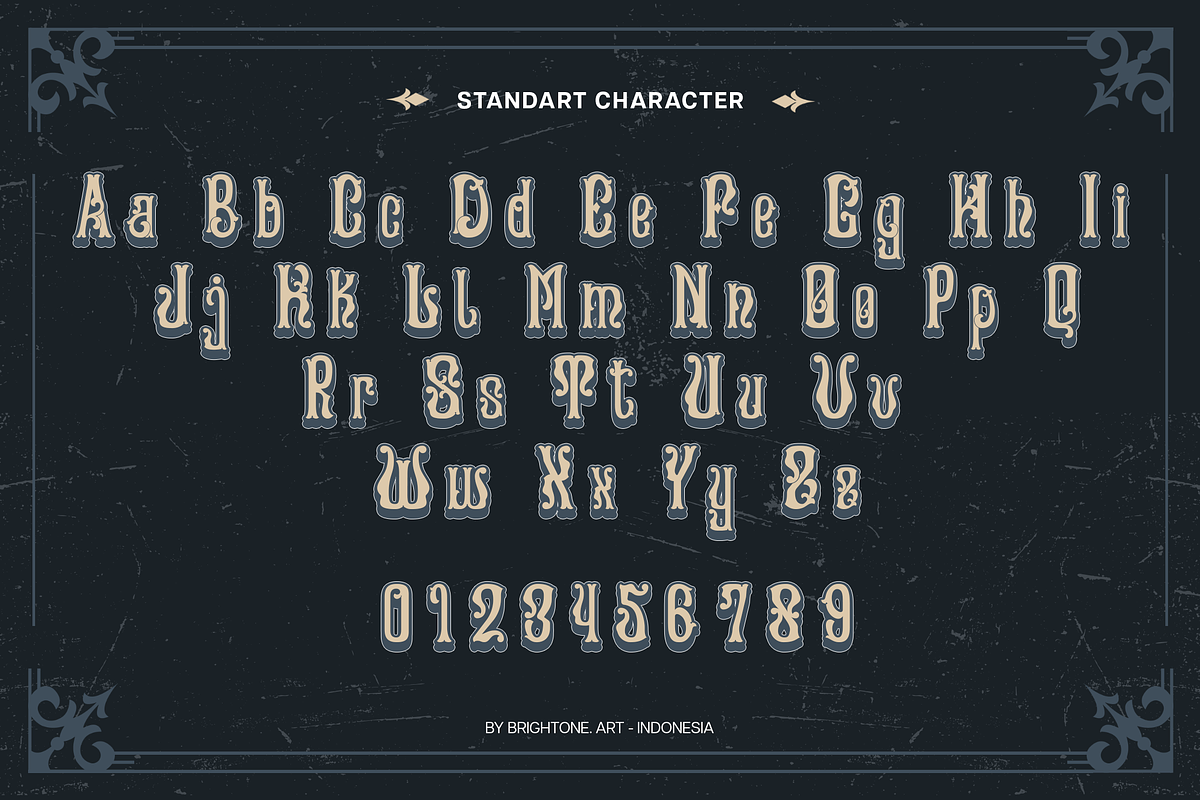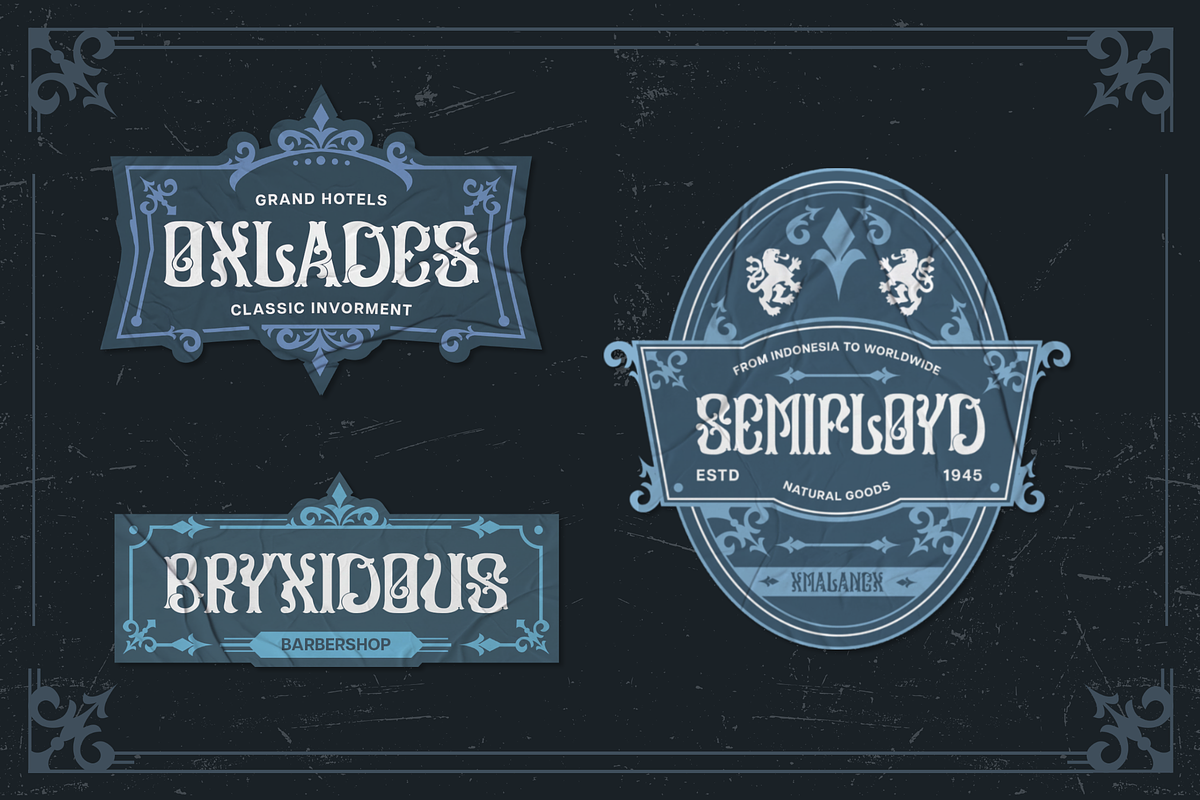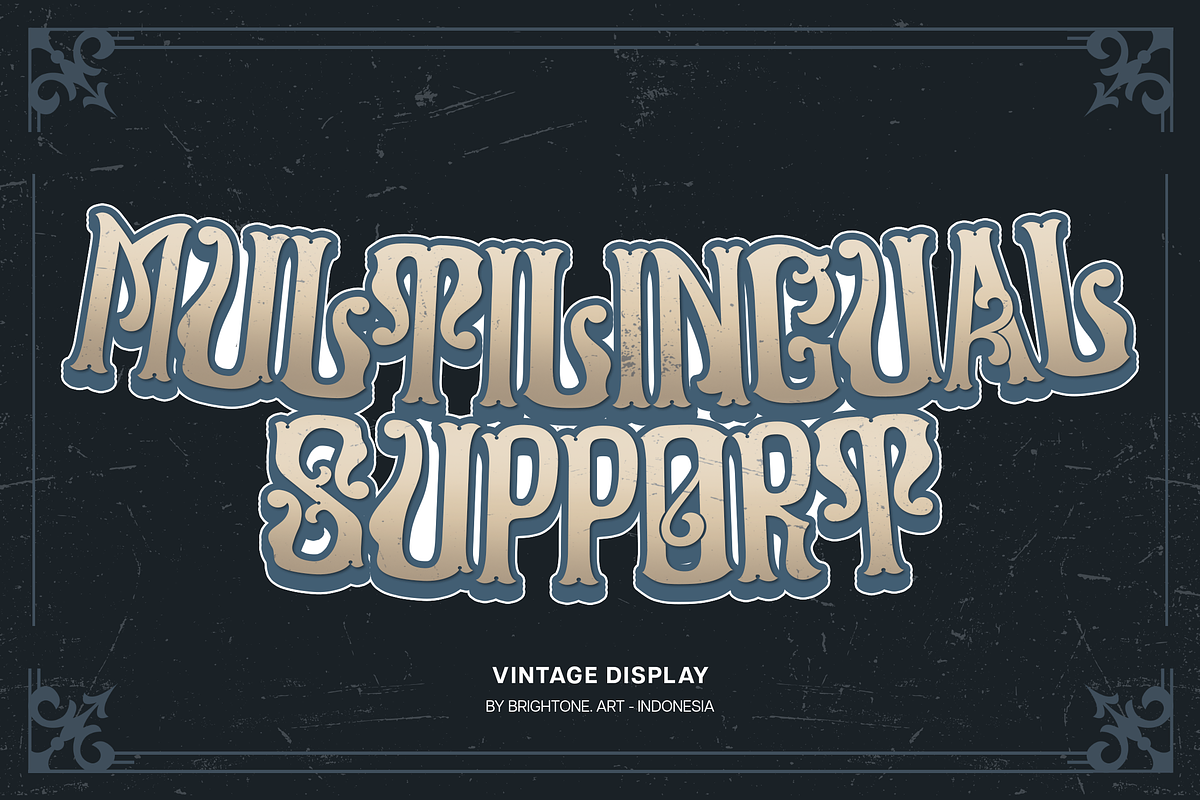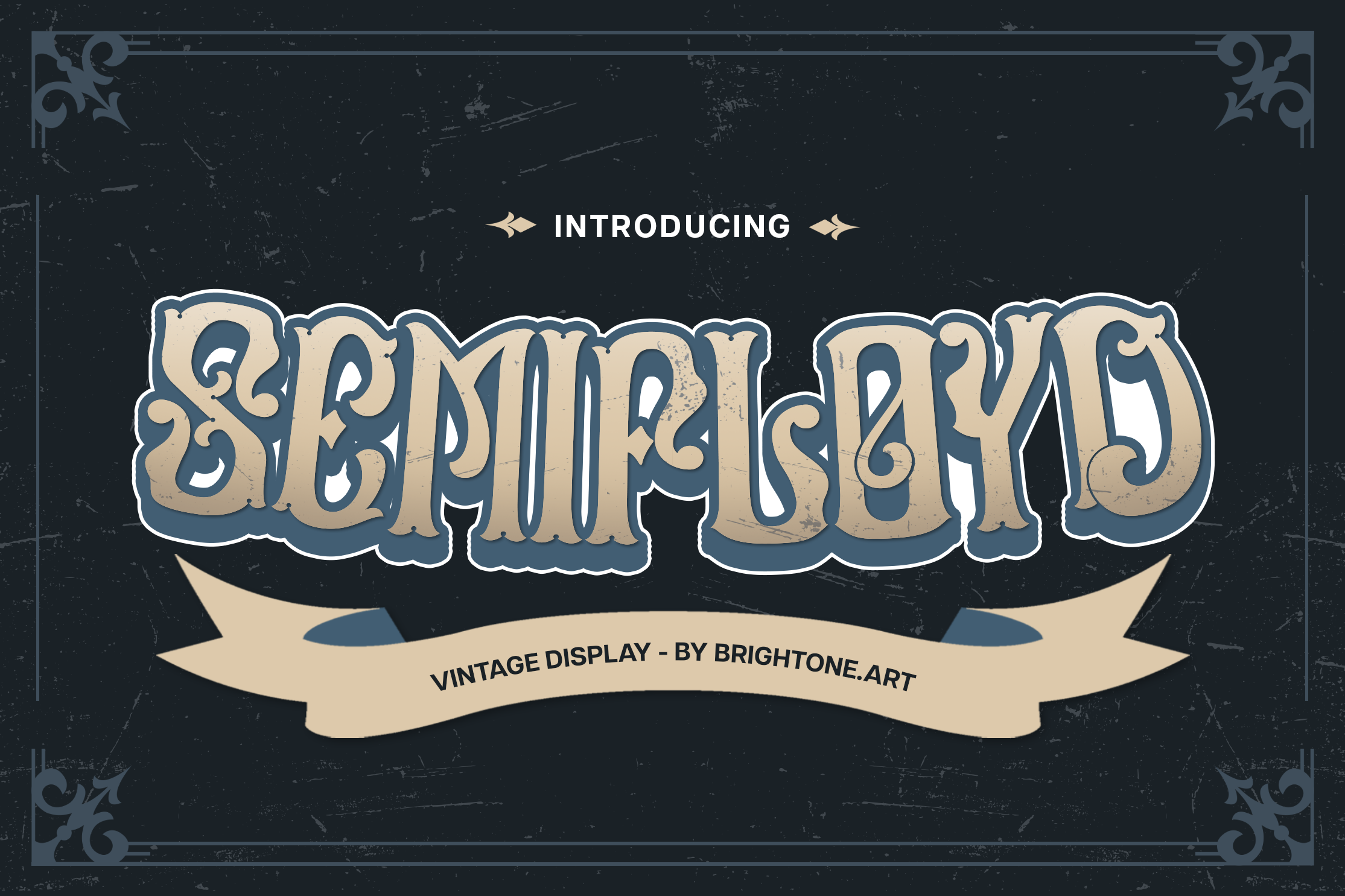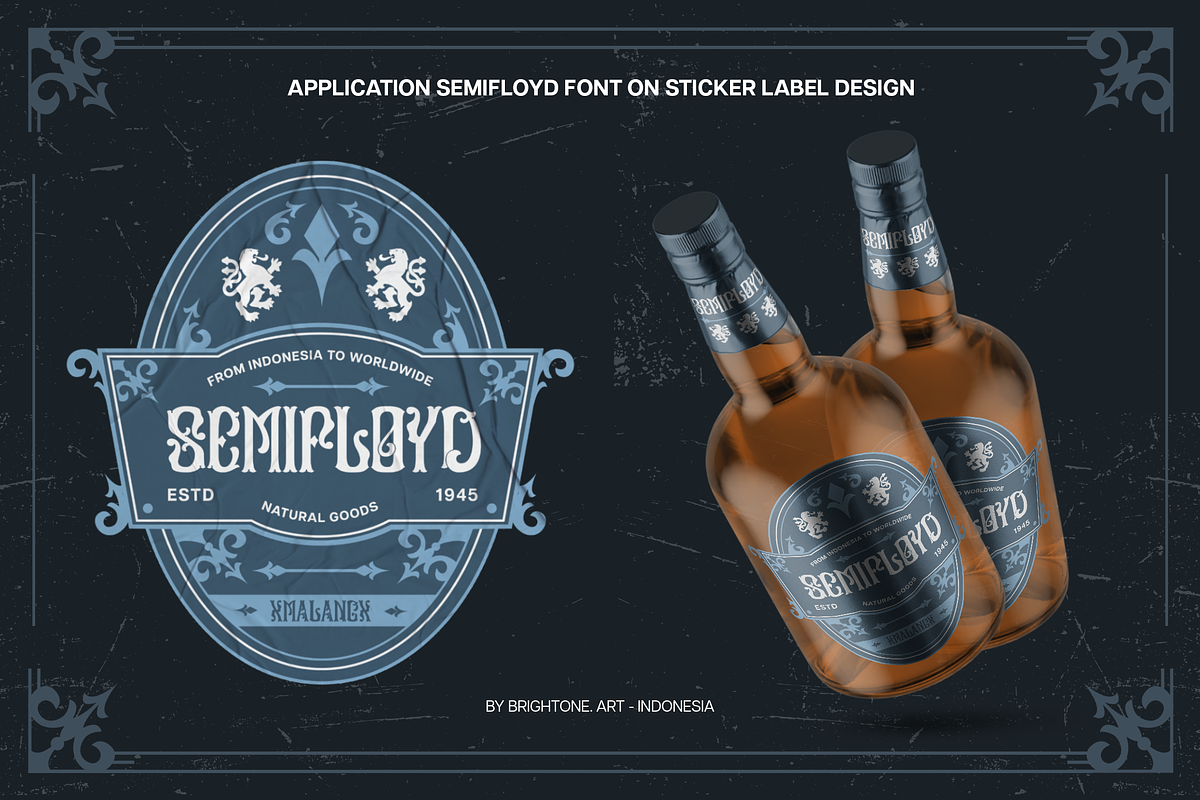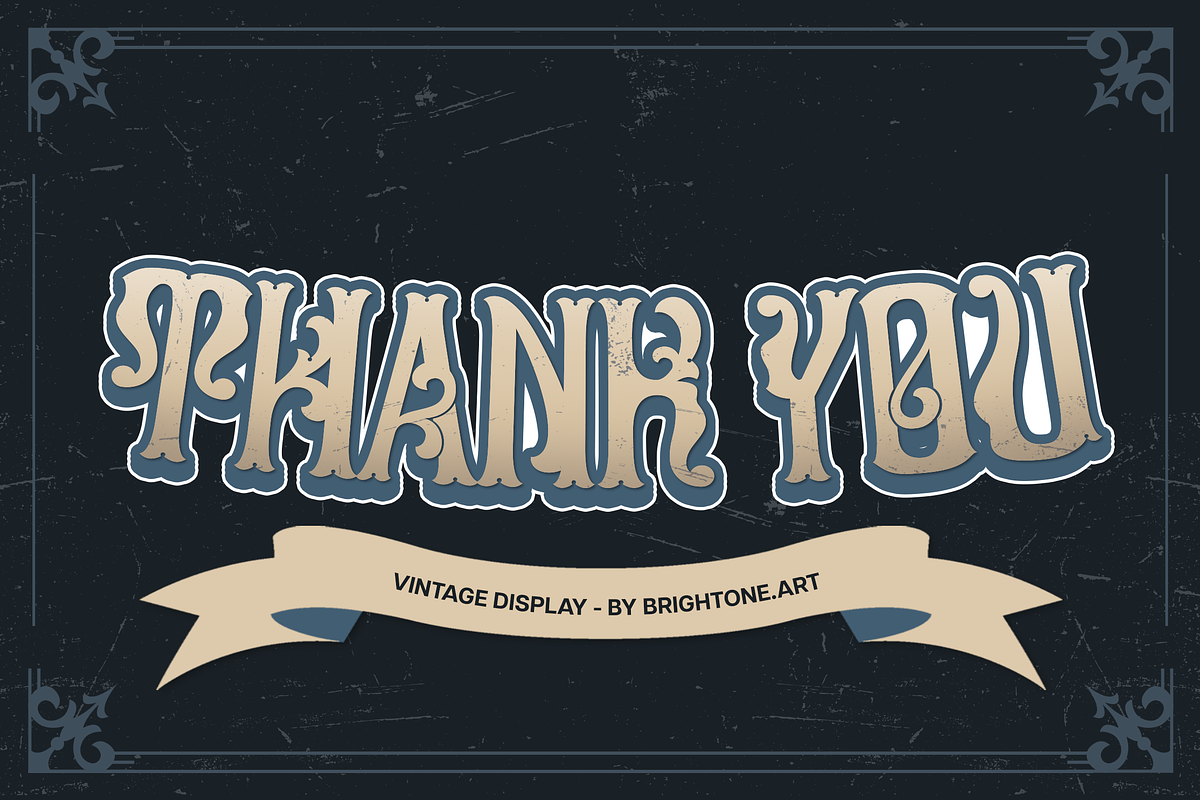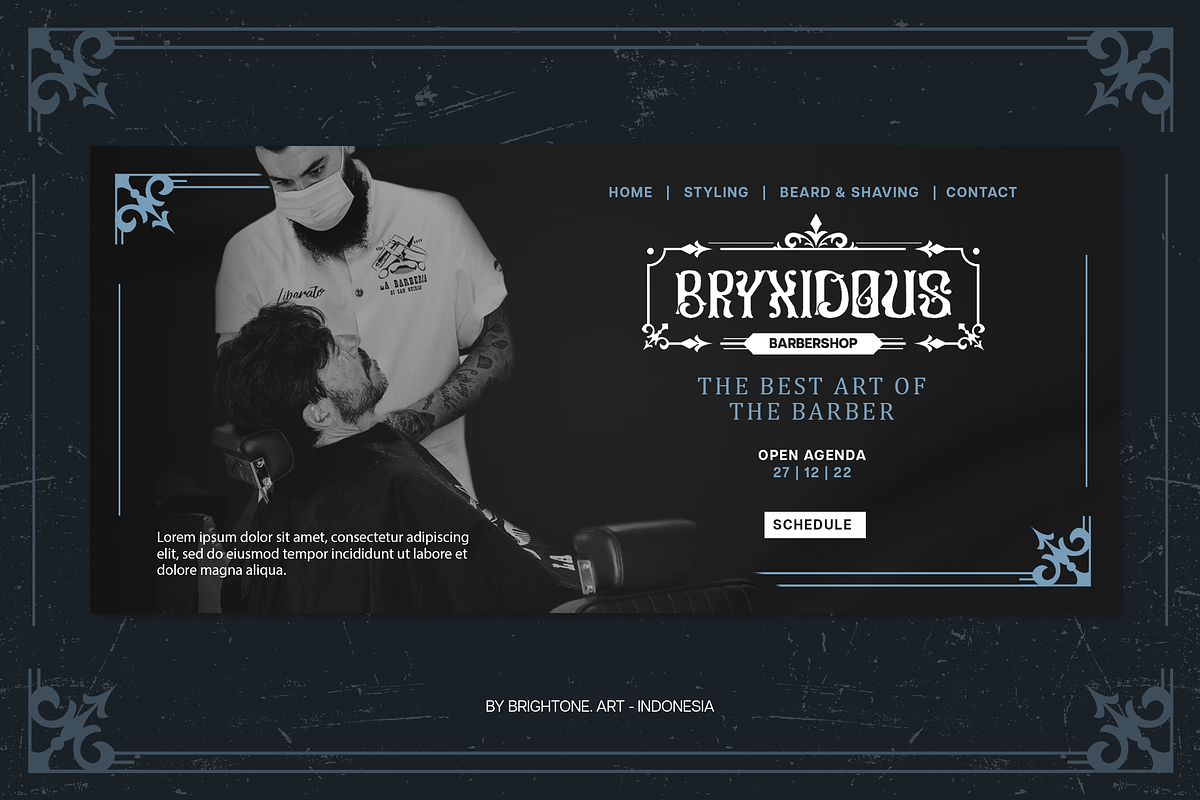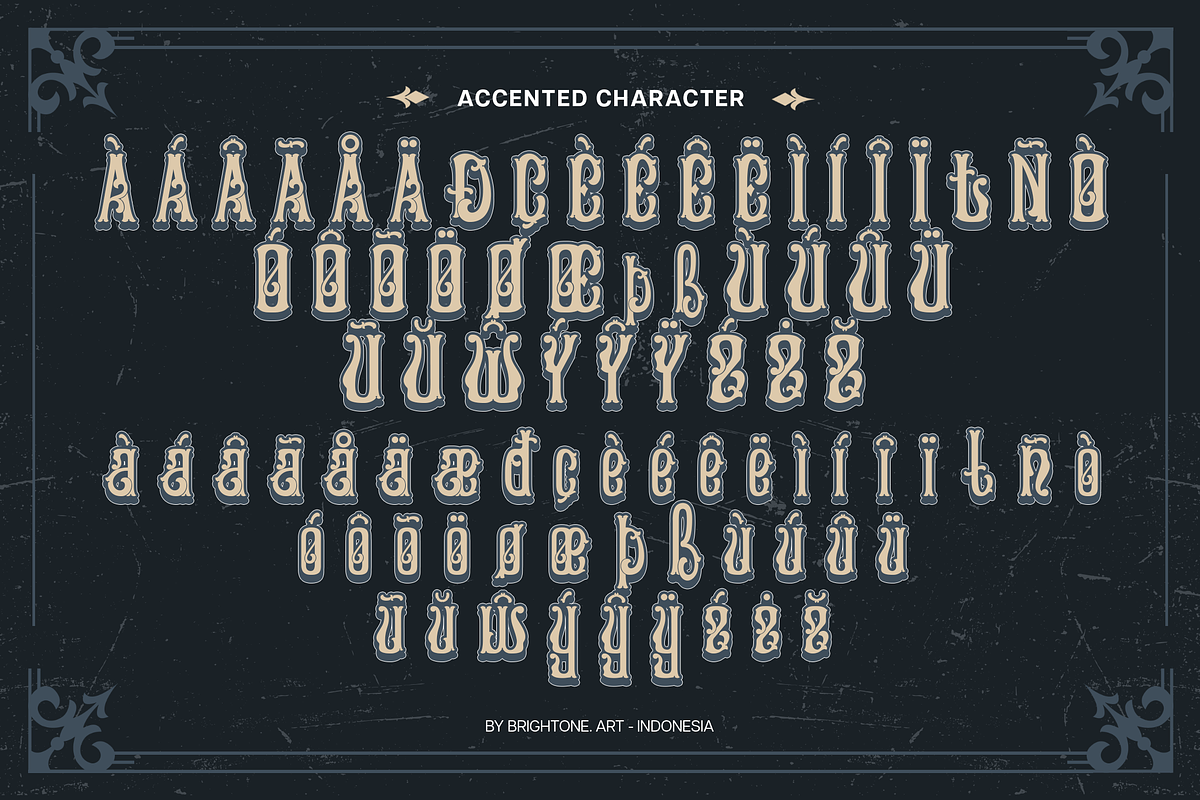
Semifloyd - Vintage Display Font
SEMIFLOYD is display font with good style and classy touch, these font includes:
- Uppercase and Lowercase Characters, Numbers and Punctuation.
- Alternates.
- Multilingual Support (Eastern, Central and Western European countries).
SEMIFLOYD font is suitable to use for all purpose for your logo lettering, logo, label, packaging, sticker, branding and many more.